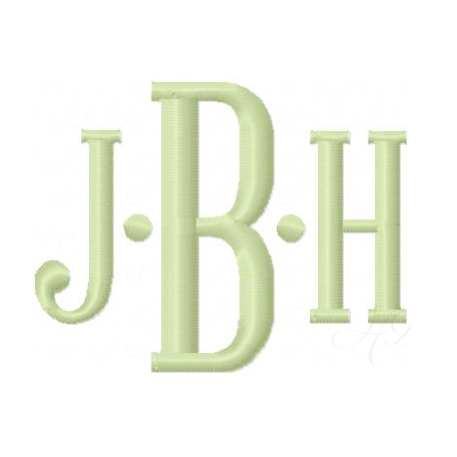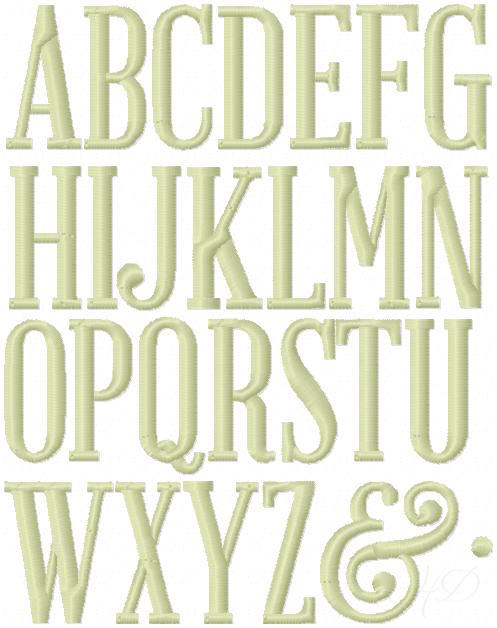
Reynolds Satin Stitch Font for Embroidery
Unlock the creativity of your embroidery projects with the Reynolds Satin Stitch Font, renowned for its bold and thick design. This font is ideal for high-pile fabrics like towels, sweatshirts, and fleece, ensuring your monograms stand out beautifully.